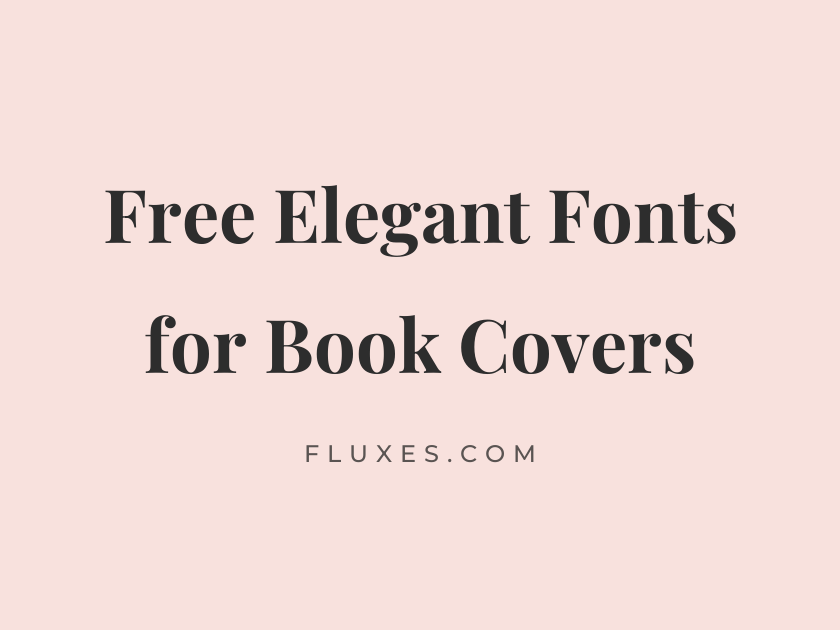
65 Best Free Elegant Fonts for Book Covers
Elegant typography often does the persuading before a reader ever cracks the spine. A cover typeface signals genre, mood, and production quality in the half second it takes someone to scroll past a shelf or a thumbnail online, which is why designers keep hunting for free elegant fonts that read as refined without a licensing invoice attached. Google Fonts has grown into a genuinely deep well of serif classics, display faces, and hand-lettered scripts that stand in nicely for costly foundry alternatives to Didot, Baskerville, and Garamond.
Whether the manuscript is a gothic romance, a literary memoir, a poetry chapbook, or an epic fantasy trilogy, the right typeface can carry as much narrative weight as the title itself. The selections here move from restrained literary serifs to ornate display faces, calligraphic scripts, and a few medieval and blackletter options for darker genre work.
1. Playfair Display
The Countess kept a secret no one dared speak
Few Google Fonts faces carry as much editorial authority as Playfair Display, the default choice for literary fiction, prestige nonfiction, and awards-season memoirs. Its dramatic swing between thick and thin strokes gives titles a printed-and-bound gravitas even before the design is finished.
It reads best set large; at small sizes the hairlines can thin out and lose punch, so save it for the title and reserve a plainer serif for the subtitle and author name.
2. EB Garamond
A history of empires, ink, and quiet ambition
Modeled on Claude Garamont’s sixteenth-century punches, EB Garamond is the font to reach for when a cover needs to feel scholarly, translated, or centuries-old without tipping into pastiche. It pairs beautifully with a plain layout and generous margins, the sort of treatment you see on university press classics and historical fiction reissues.
3. Cormorant Garamond
Letters written by candlelight, sealed with wax
Cormorant Garamond takes the same Garamond lineage and stretches it into something more fashion-editorial: tall, narrow, and full of romance. It suits poetry collections, literary romance, and anything set in a drawing room or a Parisian apartment.
4. Cormorant
Verses meant to be whispered aloud
The display-weight sibling to Cormorant Garamond, Cormorant leans harder into its high contrast and delicate serifs, making it a strong choice for a lone title word on an otherwise minimal cover.
5. Libre Baskerville
A detective story set in fog and lamplight
Built specifically for screen legibility, Libre Baskerville keeps the warmth of the original Baskerville while staying crisp at the smaller sizes used in ebook thumbnails and online store listings. It is a dependable, slightly old-fashioned workhorse rather than a showstopper.
6. Lora
Between the pages, a life fully lived
Lora has a gentle calligraphic undercurrent to its curves that keeps it from feeling stiff, which is why it turns up so often on contemporary literary fiction and memoir covers as body and subtitle text beneath a bolder display title.
7. Crimson Pro
An old letter found beneath the floorboards
Crimson Pro was drawn in the spirit of classic book typefaces like Garamond and Caslon, and it shows in its comfortable proportions and understated character. It is a safe, handsome choice for interior-feeling covers on essay collections and quiet fiction.
8. Spectral
Notes from a scholar who never returned
Originally commissioned for on-screen reading, Spectral carries a slightly gridded, modern coolness that suits academic titles, essay anthologies, and speculative fiction that wants to feel intelligent rather than lush.
9. Fraunces
A cottage, a storm, and a stranger's return
Fraunces bends old-style serif shapes into something wonky and warm, with optional soft or sharp settings that let it flex between cozy contemporary romance and something more editorial and art-directed. It rewards designers willing to experiment with its wide range of optical sizes.
10. Domine
A memoir of grief, grace, and grit
Domine was built as a free alternative to the sturdy serifs used on bestseller lists, and it does that job plainly and well: solid, readable, unglamorous in the best sense.
11. Vollkorn
The village kept its oldest promise
Vollkorn has a rustic, slightly heavier body that reads as European and literary, a good match for translated fiction or a saga with some historical dust on it.
12. Alegreya
Poems written in exile, read at home
Designed for long-form reading, Alegreya has a calligraphic, humanist warmth that makes it feel handwritten even in text form, which suits poetry and literary fiction covers that want intimacy over grandeur.
13. Alegreya SC
THE LAST LETTER FROM THE FRONT
Alegreya SC
The small-caps cut of Alegreya brings a formal, engraved quality to a title line, useful for historical fiction or war memoirs where the whole word set in caps feels like a chapter heading.
Always test a cover design at thumbnail size. Many of these fonts look stunning at poster scale but lose detail once shrunk down for an online bookstore listing.
Letter-spacing helps almost every serif and small-caps face on this list breathe a little more when used in a title. A touch of tracking often reads as more expensive than tightly set type.
Between the literary serifs, the display faces, and the handful of gothic and calligraphic options here, there is enough range to dress almost any genre convincingly, all without spending a cent on licensing.